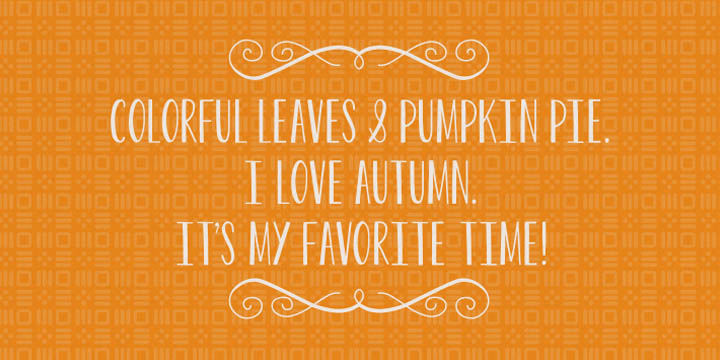
Luella
Luella, an epitome of typeface elegancy is hand drawn and vintage inspired. This amazing font by Cultivated Mind has been meticulously fashioned and is available in three weights (Regular/Bold/Black). The typography is an ideal choice for those who wish to achieve an ornamental effect.
Luella font
The Luella frames and ornaments sets can make any writing project a marvellous work of art.
Luella font detail